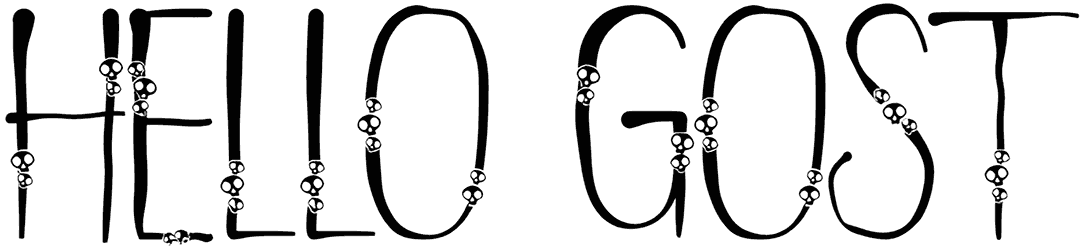
Hello Gost Font
Designed byNiyos
If you want to show off a chilling but cute design, don’t miss this funny offer. As a ghost font, Hello Gost possesses delicate letters trimmed by tiny skulls that make it so adorable. Unfortunately, lowercase letters are not present, but this handwritten font would be perfect for promoting your creative projects from game screens to posters.